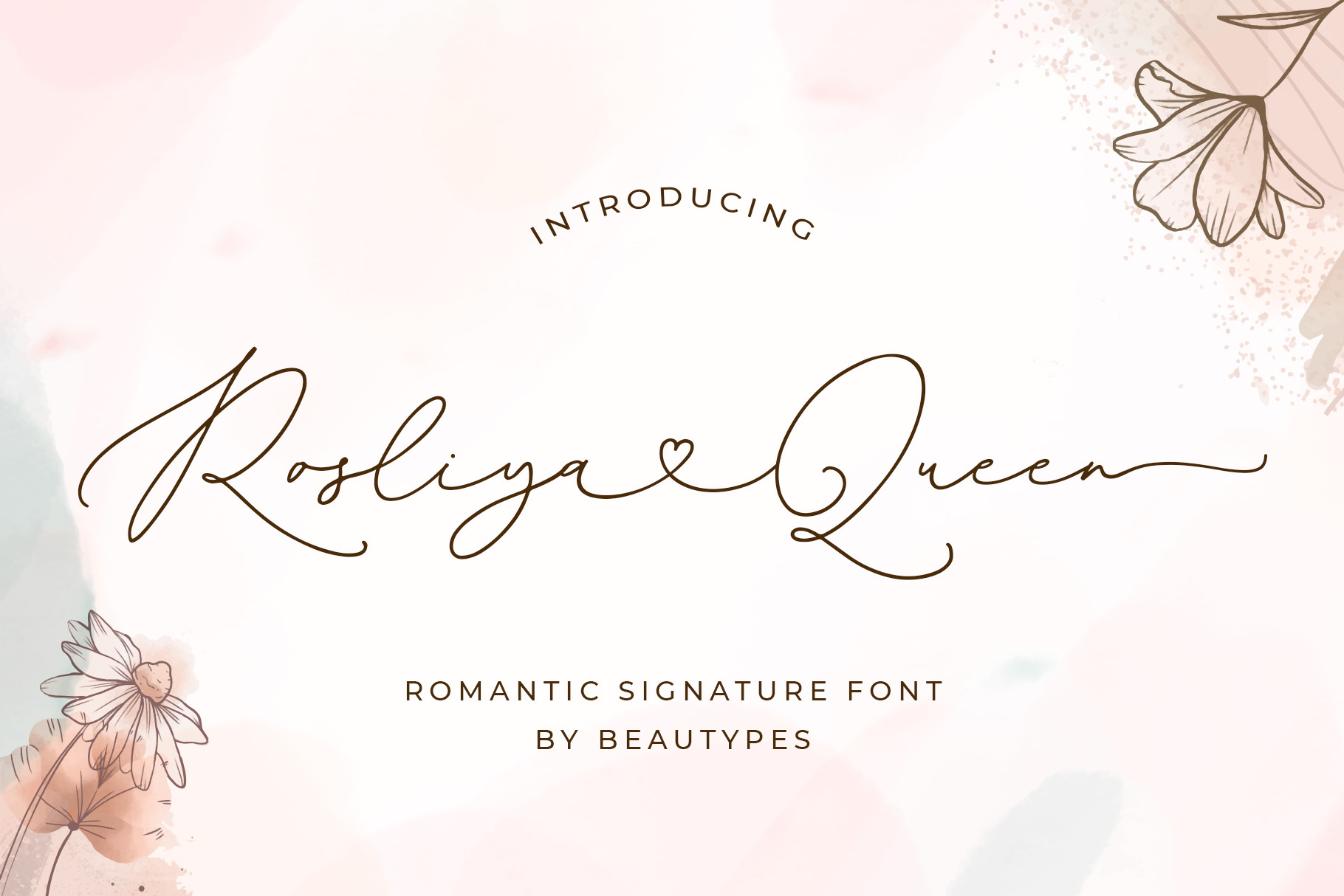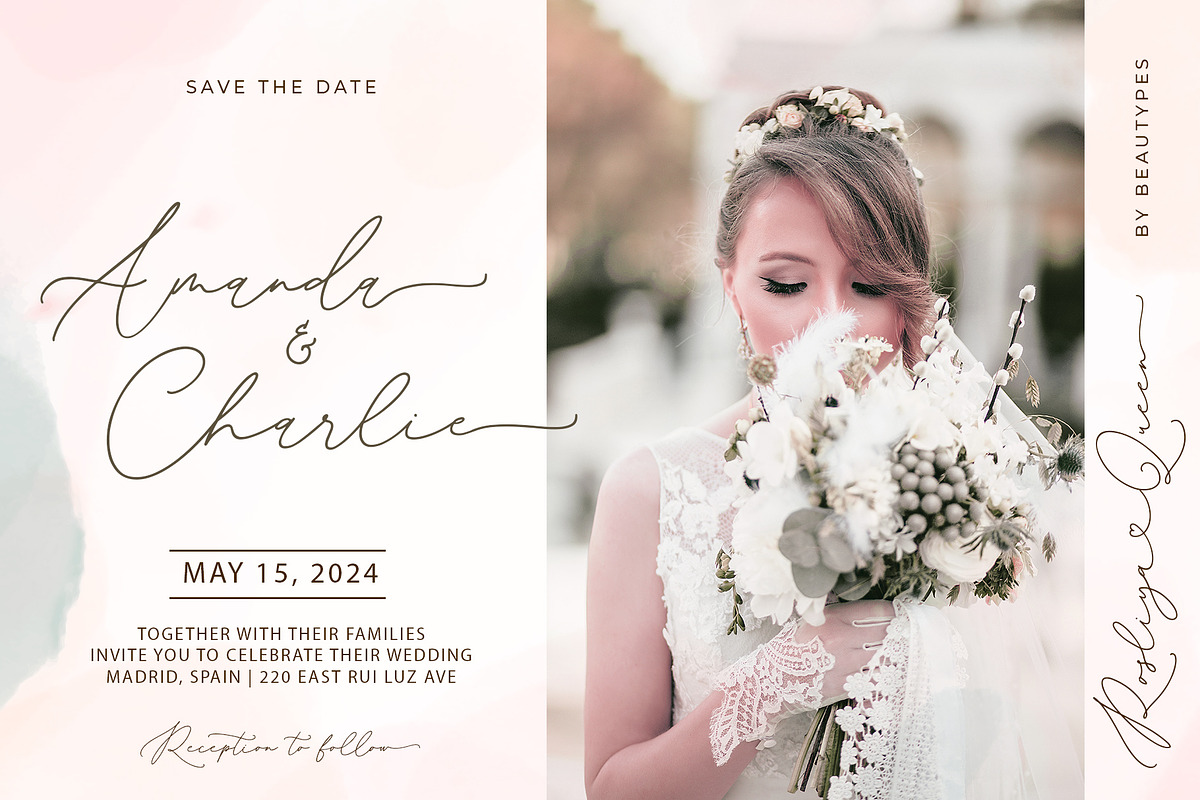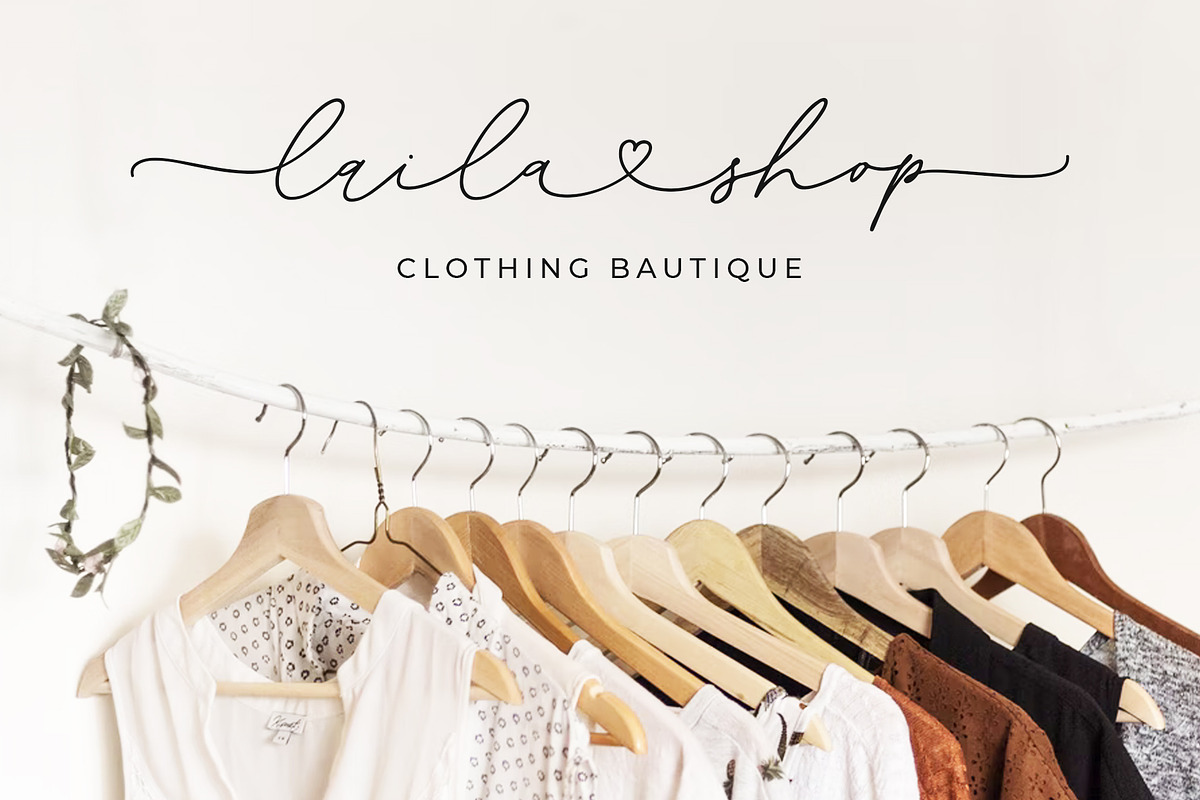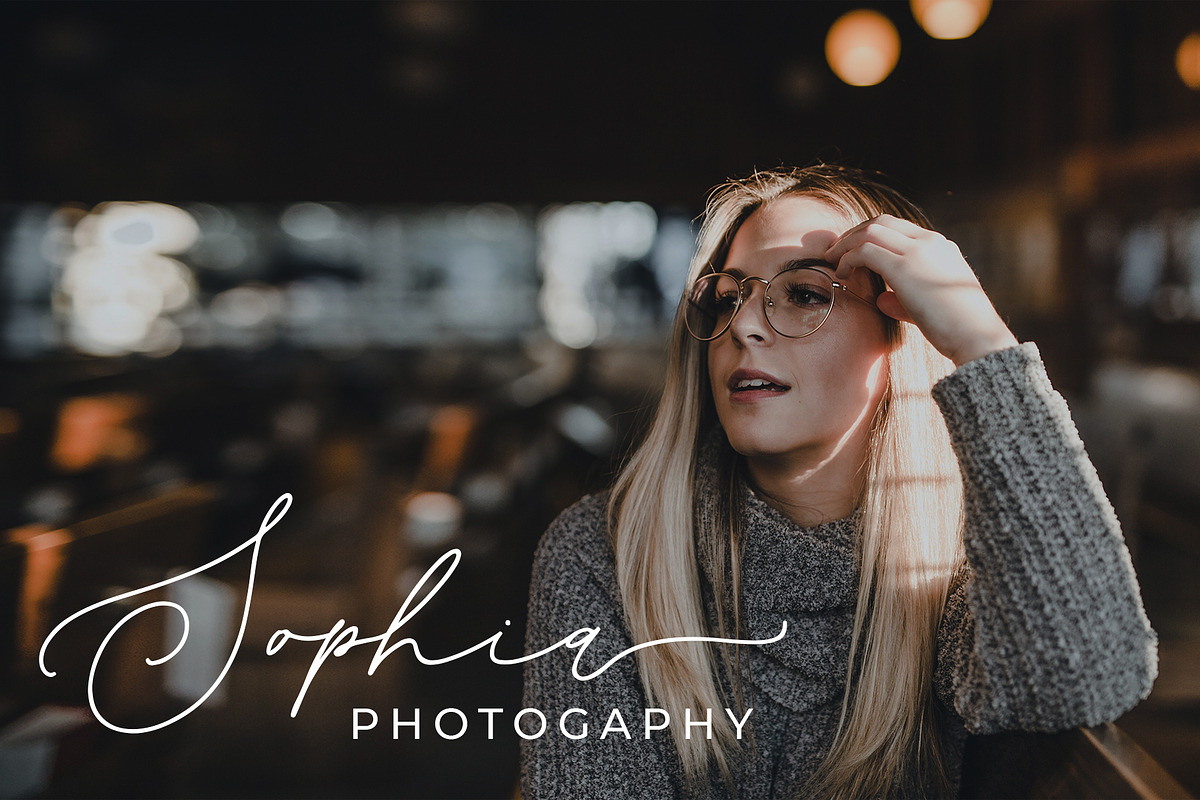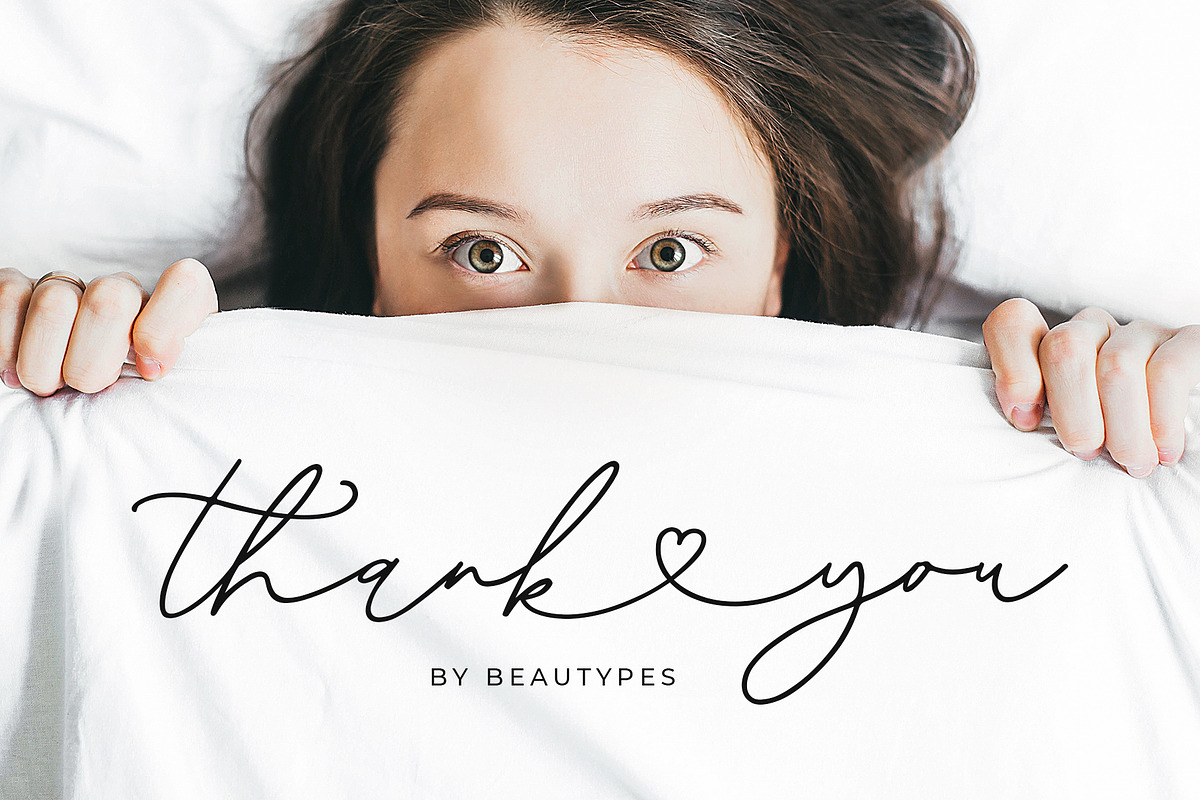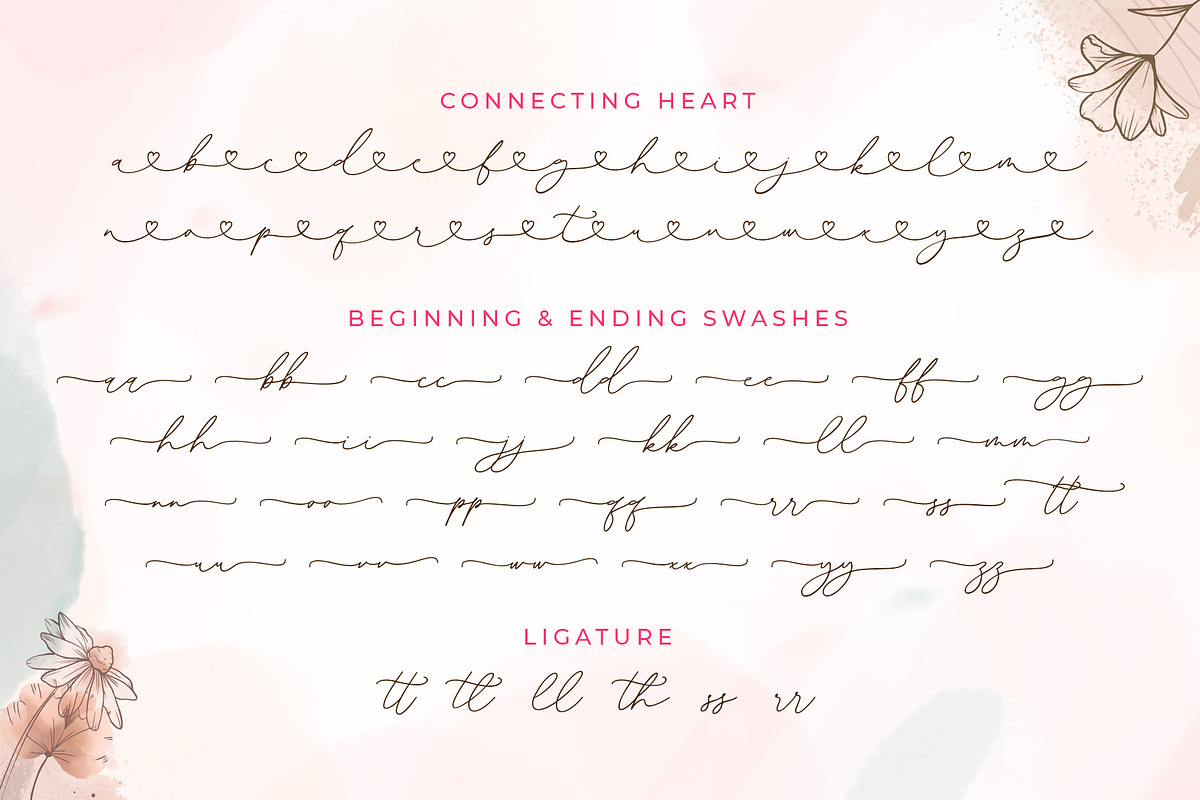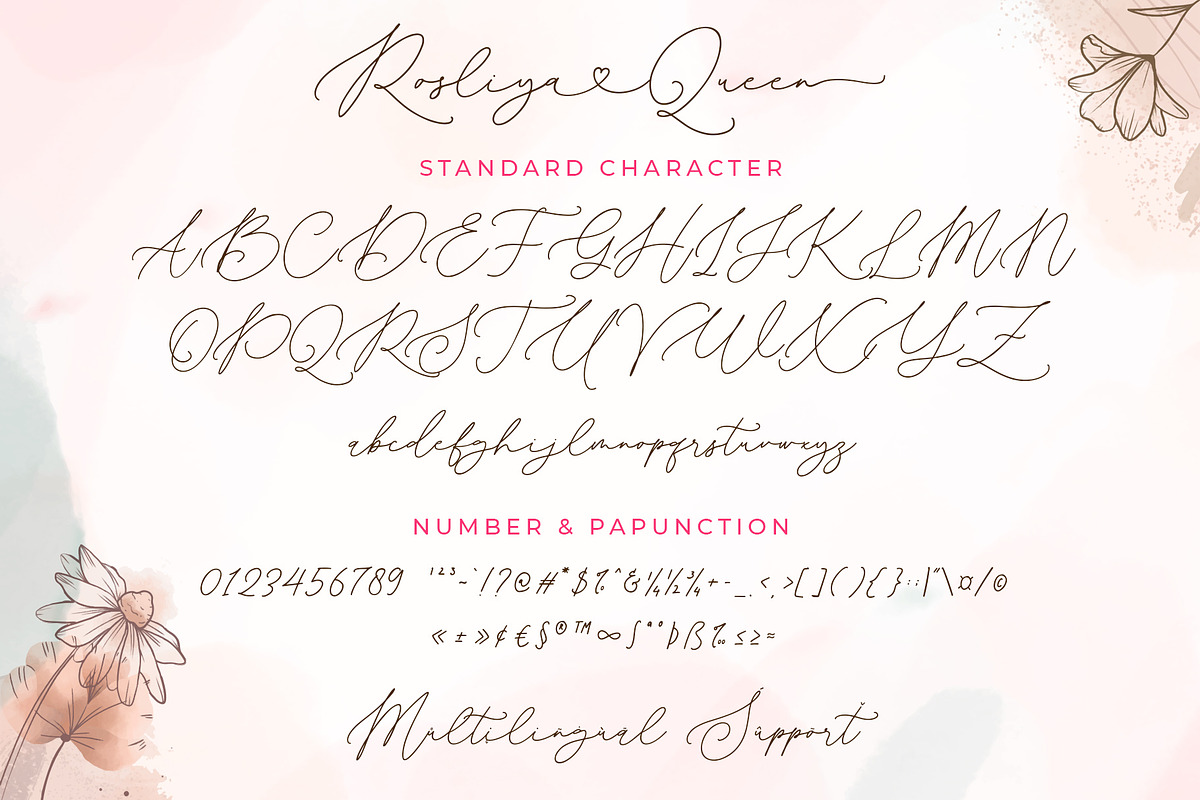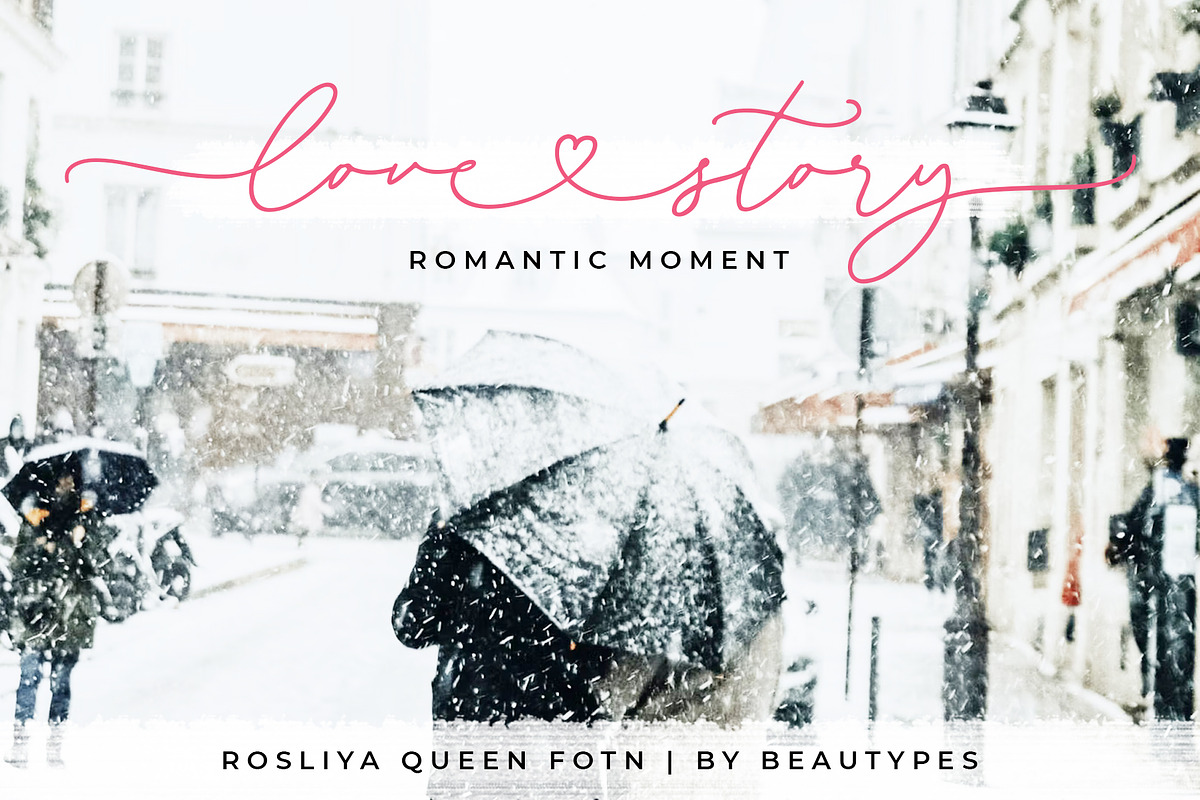
Rosliya Queen - Signature Heart Font
"Rosliya Queen" is a signature heart font with Elegant Style this is perfect for branding, logos, invitation, greeting cards, headlines and more. this font will guarantee a romantic touch to each of your creations!
Rosliya Queen is PUA encoded which means you can access all of the glyphs and swashes with ease.